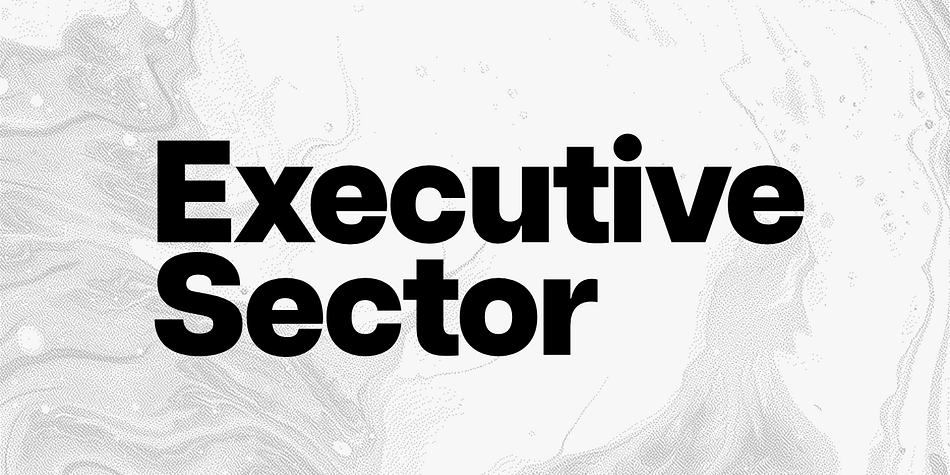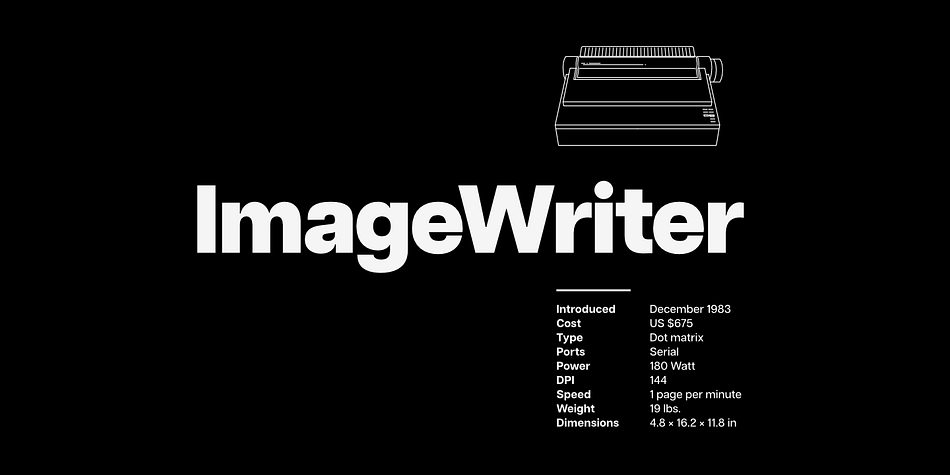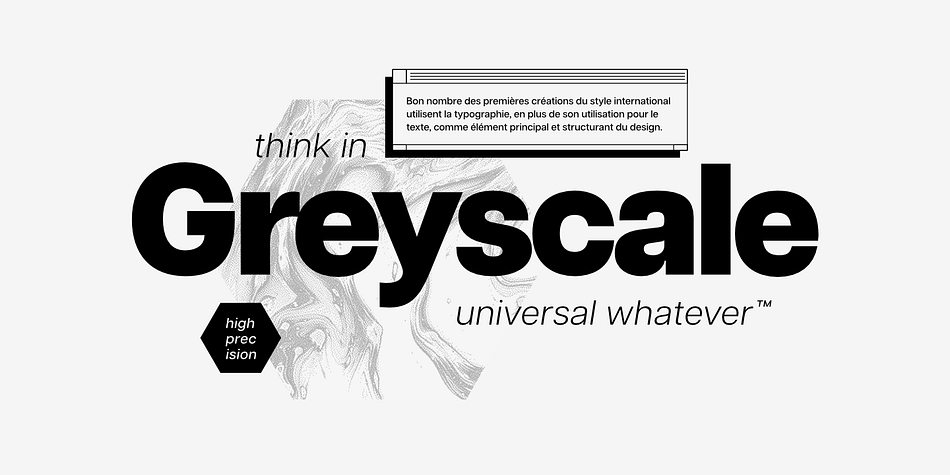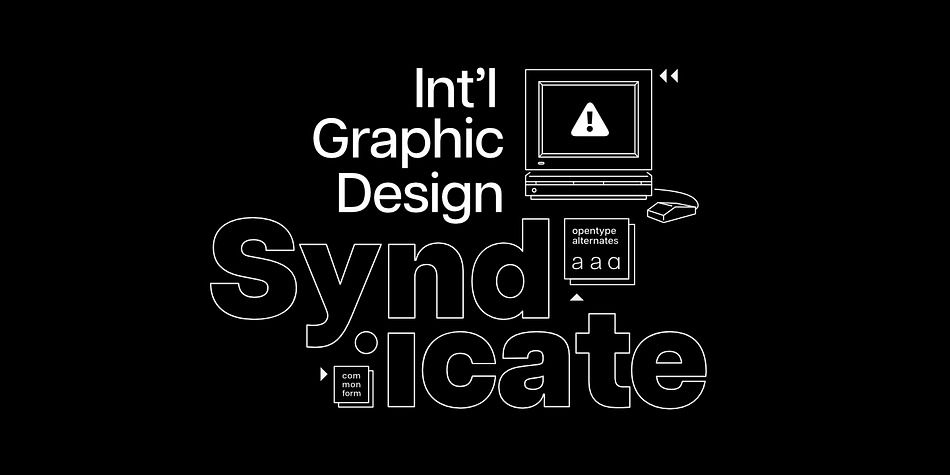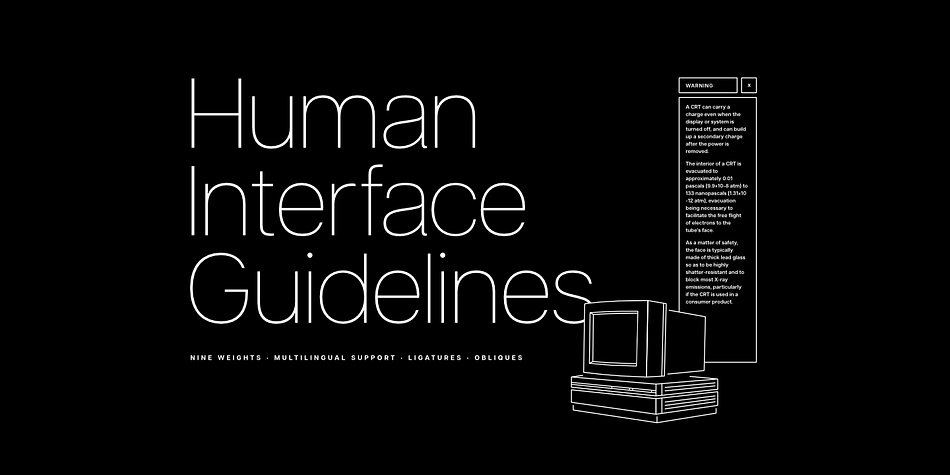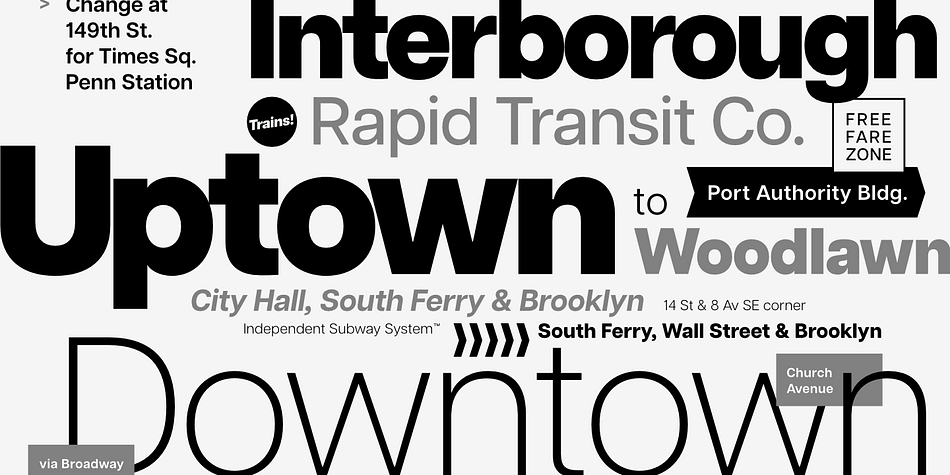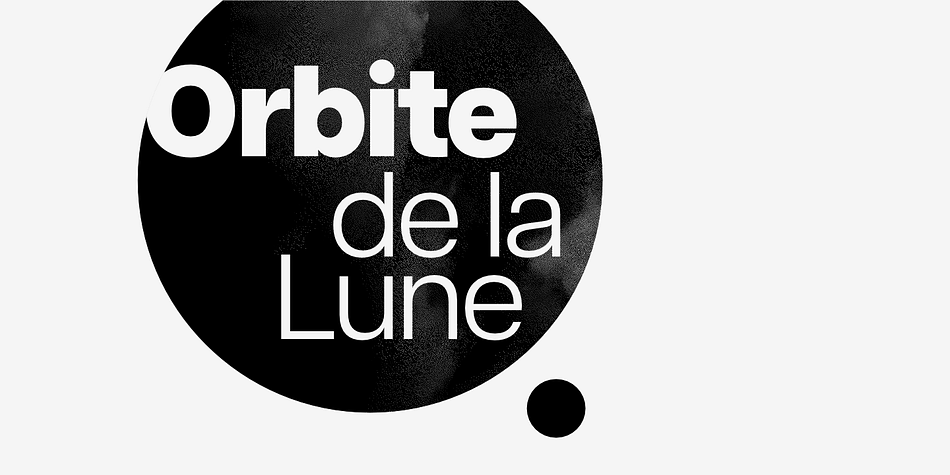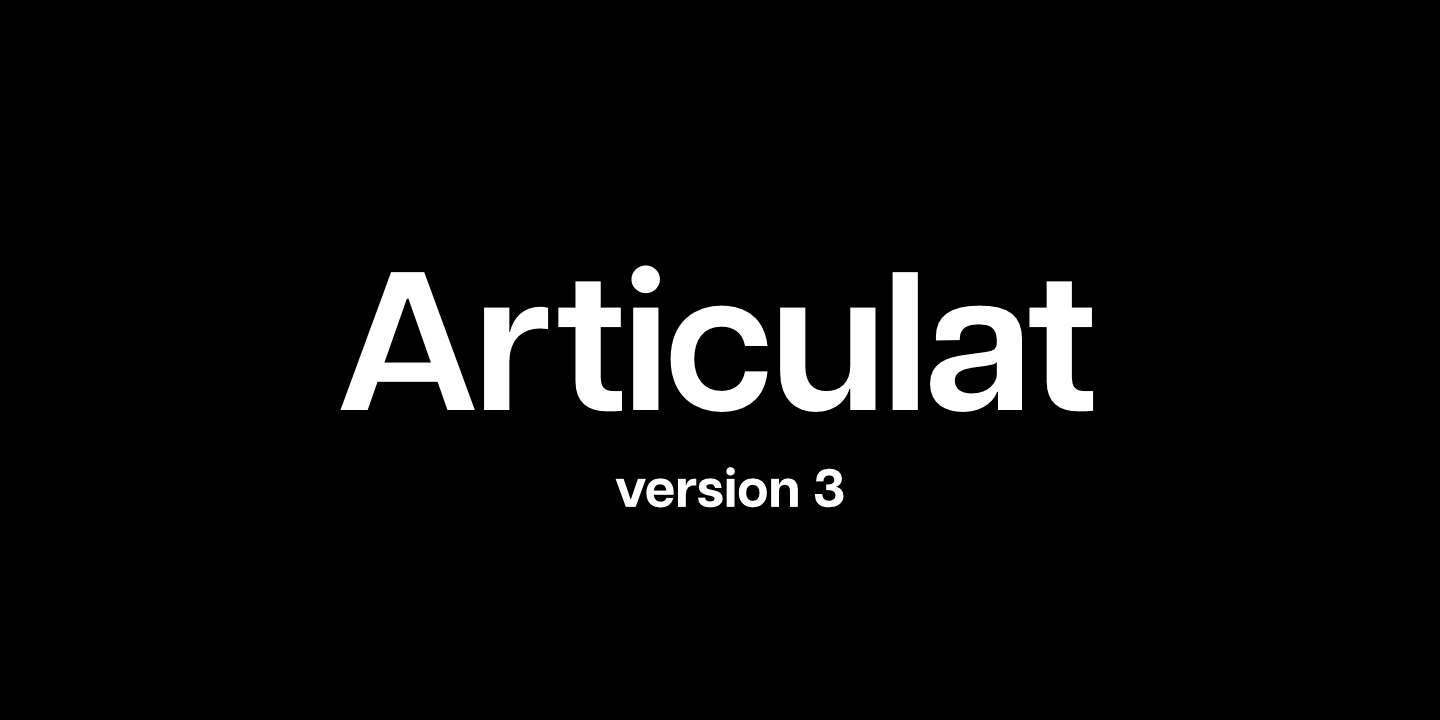
Articulat CF is a sans serif font family. This typeface has twenty styles and was published by Connary Fagen Type Design.
Articulat CF is a new take on the timeless Swiss typography style. Strong, sharp and well-spoken, Articulat was built to be versatile, charismatic and legible. Always in style, use it for a hit of mid-century beauty – reimagined for the 21st century with more flavor and individuality.